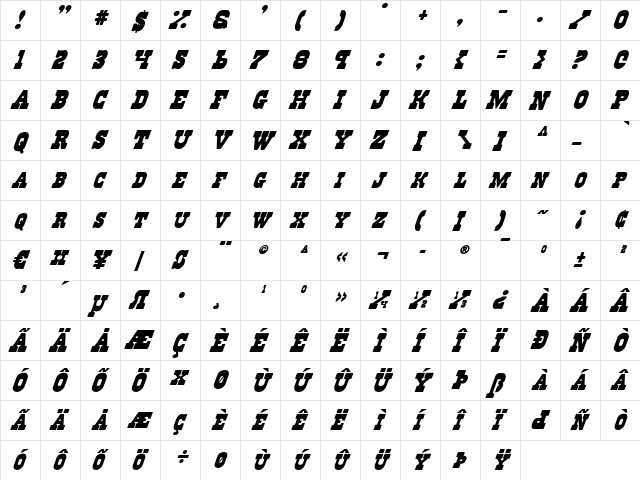
Regulators Italic Italic
Design Context for Regulators Italic Typeface
Regulators Italic takes a measured approach to typography — its balanced proportions and neutral character make it a reliable workhorse for both digital and print work. The dynamic lean of this cut emphasises speed and emphasis in any layout.